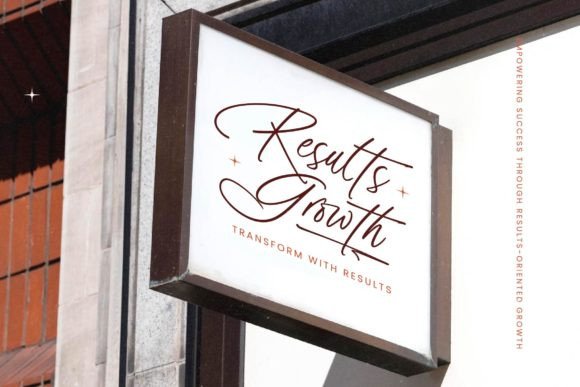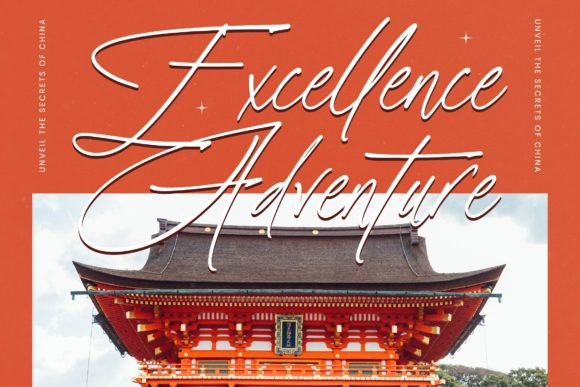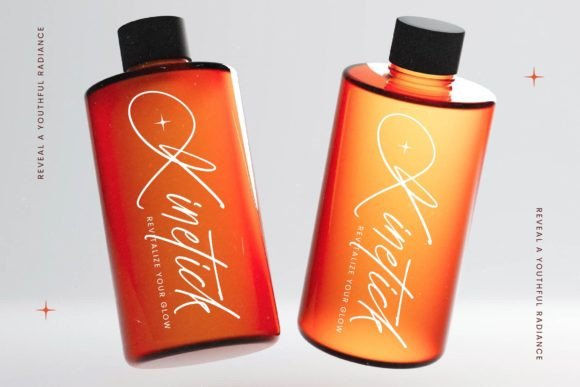
Introduction to Pathentic Actions Font
Pathentic Actions is a stylish handwritten script font exuding elegance and charm.
Its fluid strokes and natural flow create a captivating, sophisticated look Perfect for adding a personal touch to invitations, branding, or social media, this font brings a sense of warmth and creativity to any design.
Key Features of Pathentic Actions Font